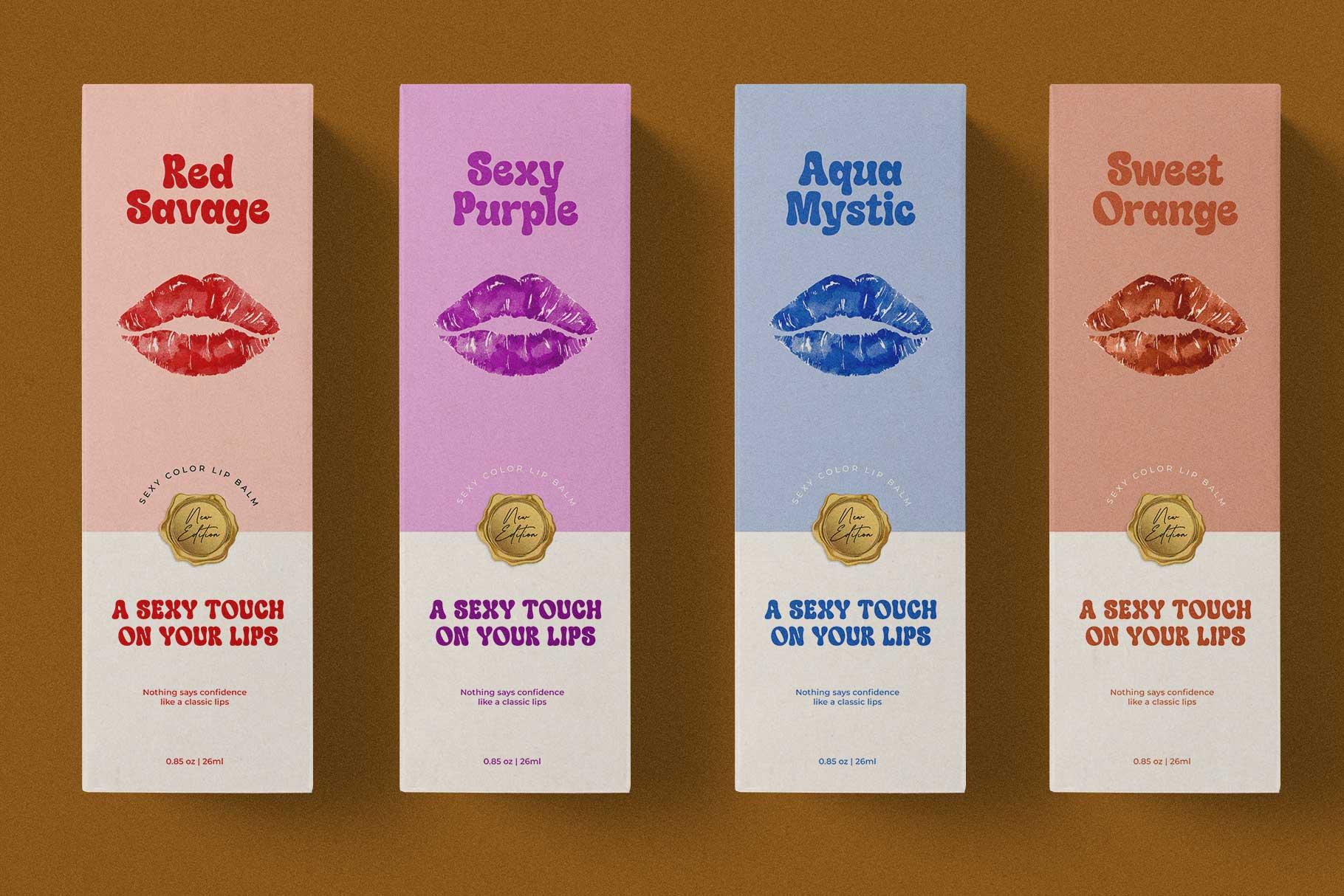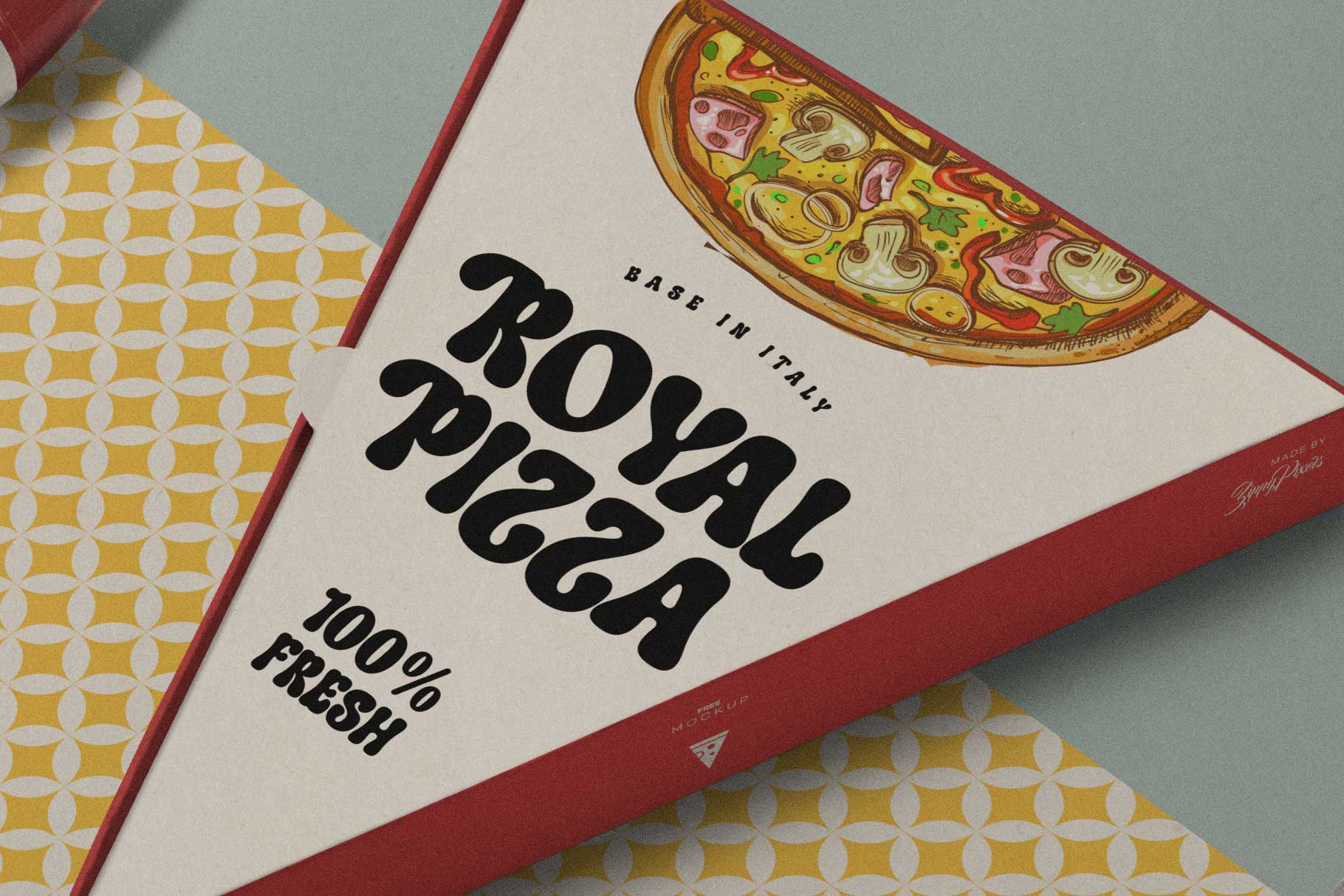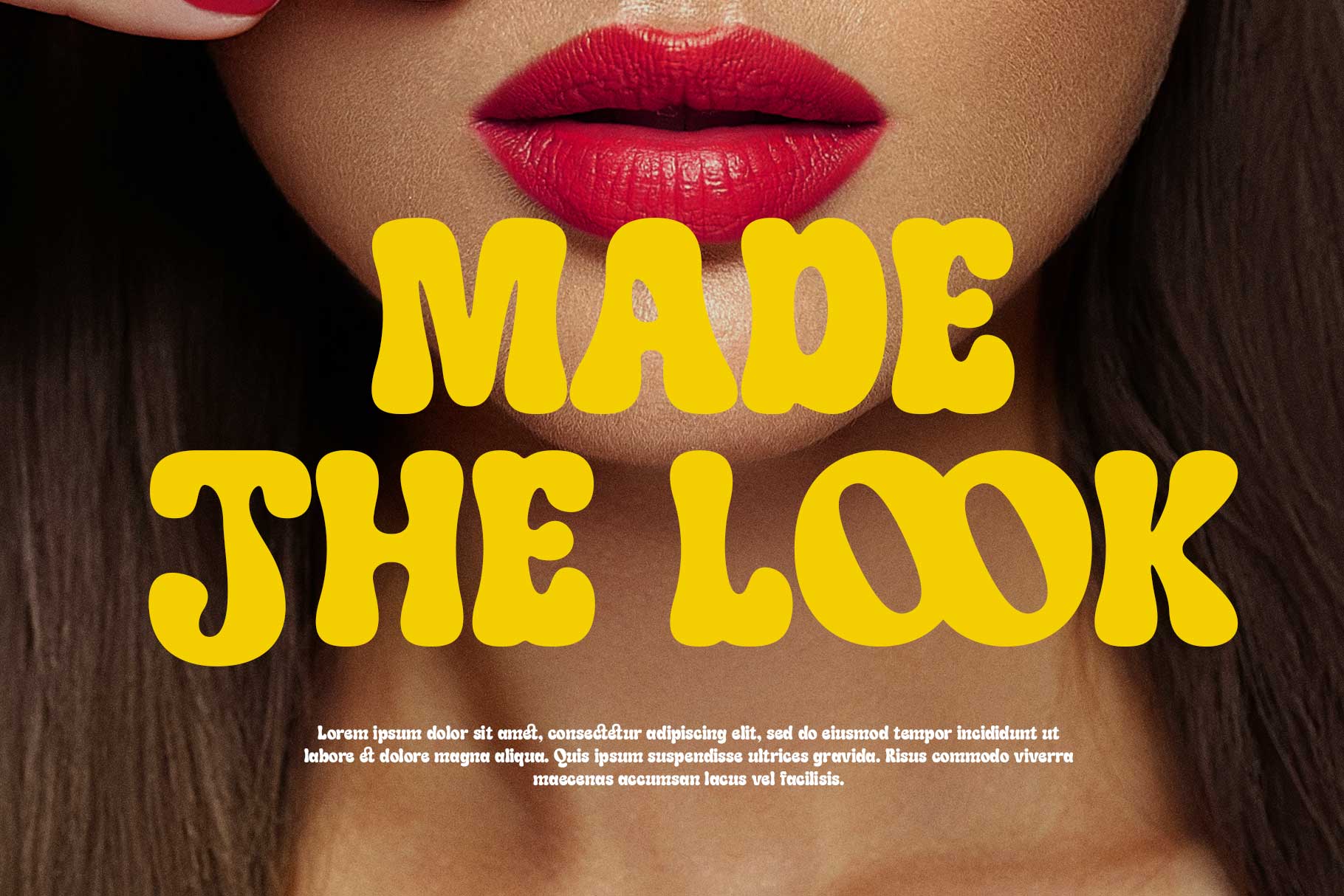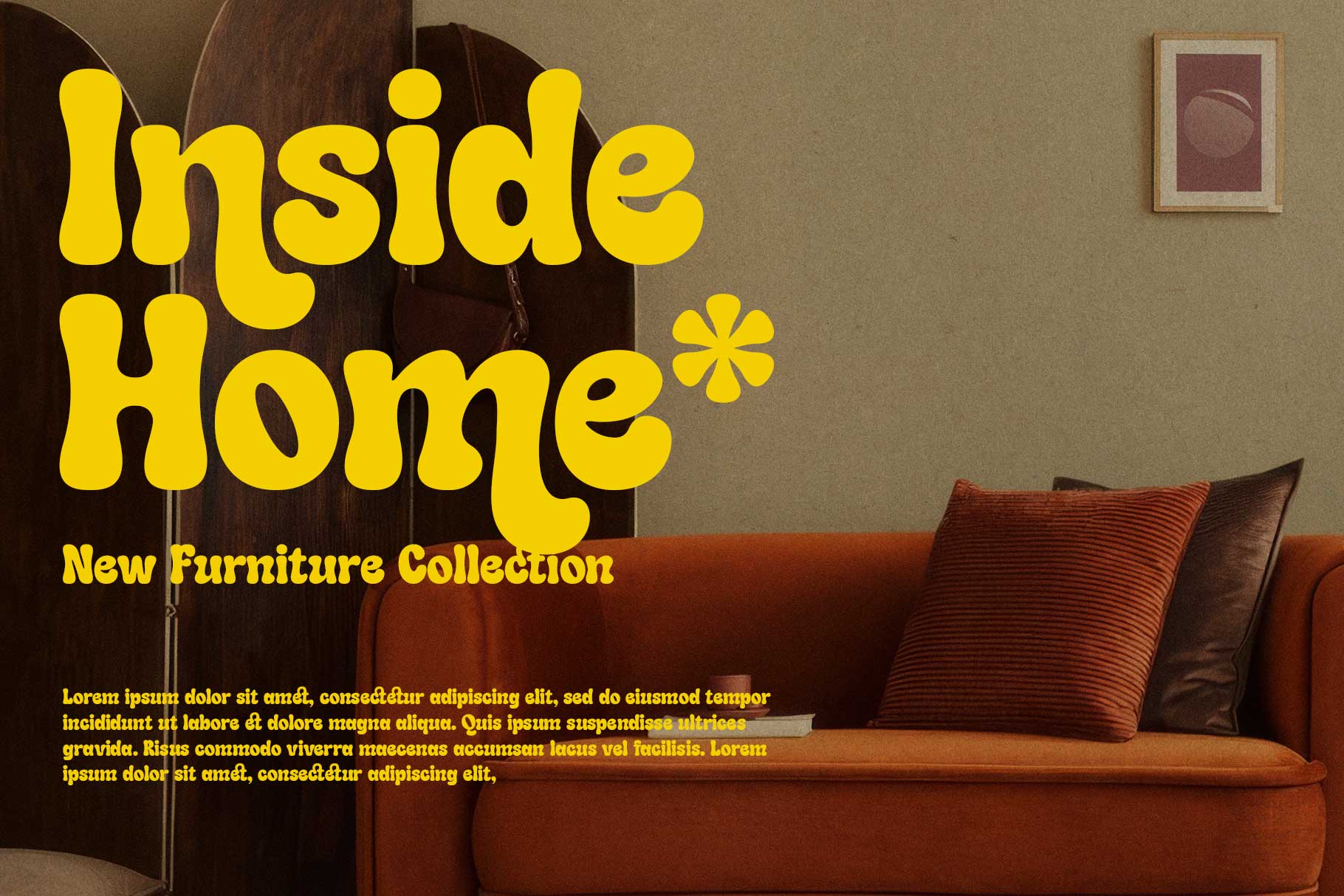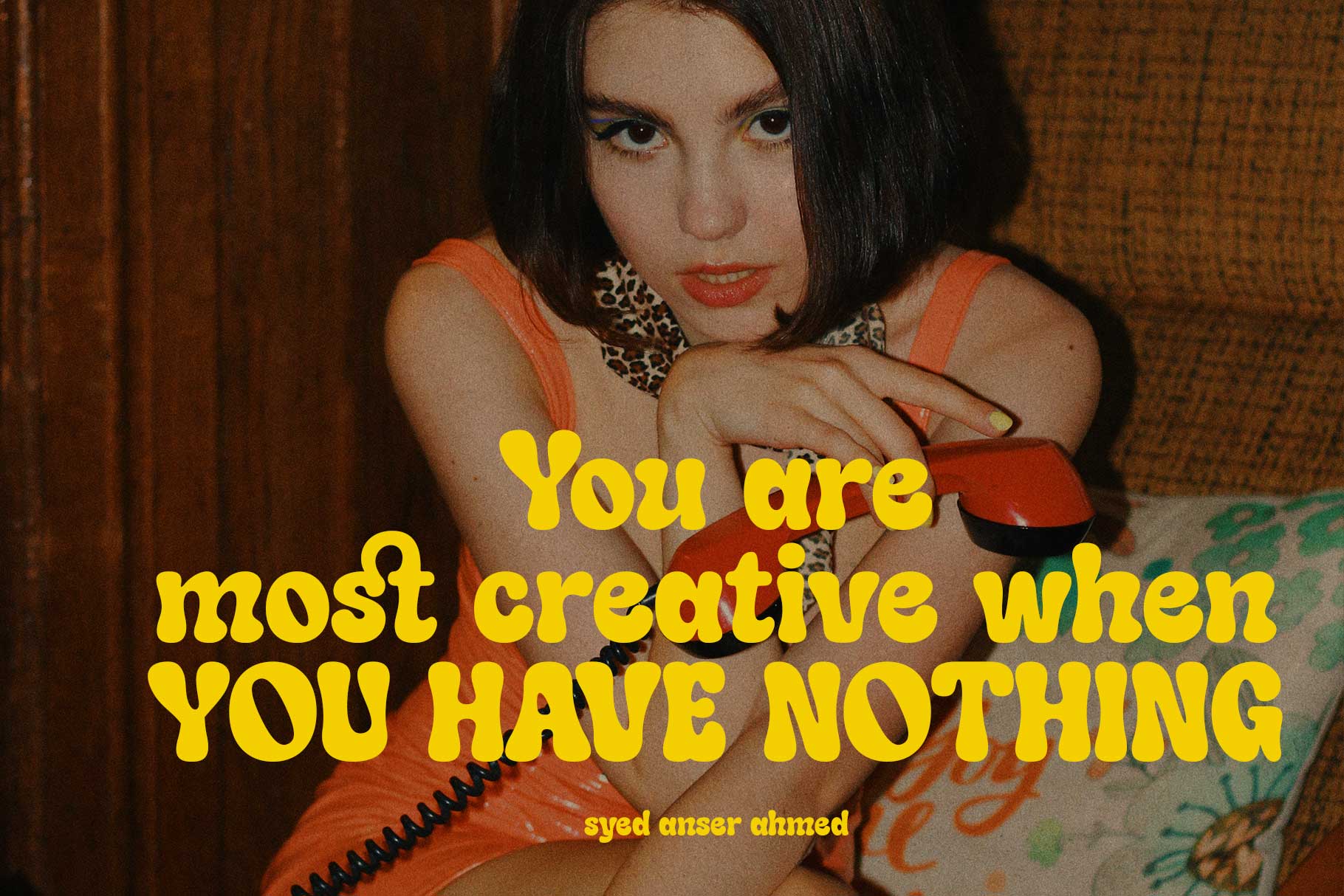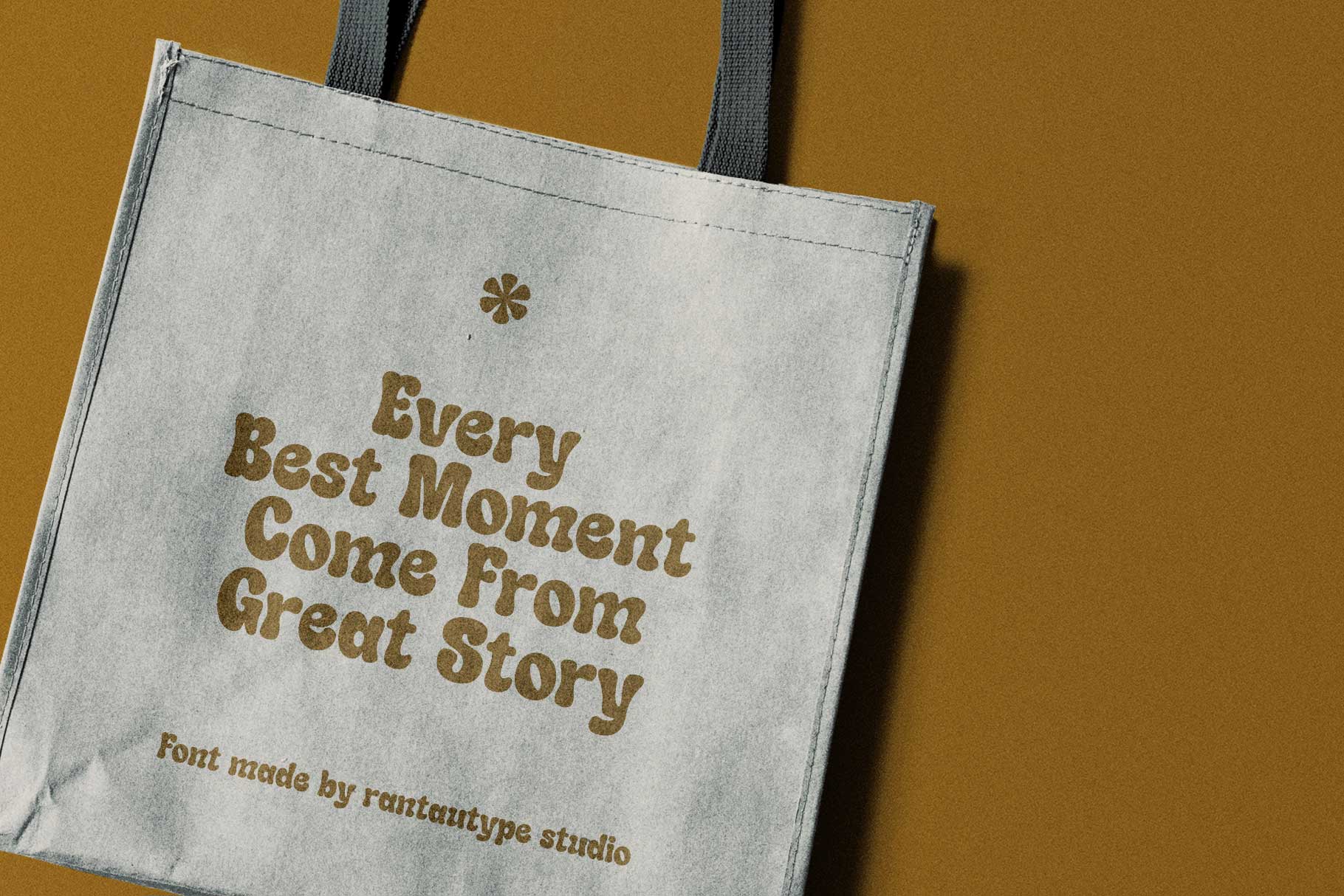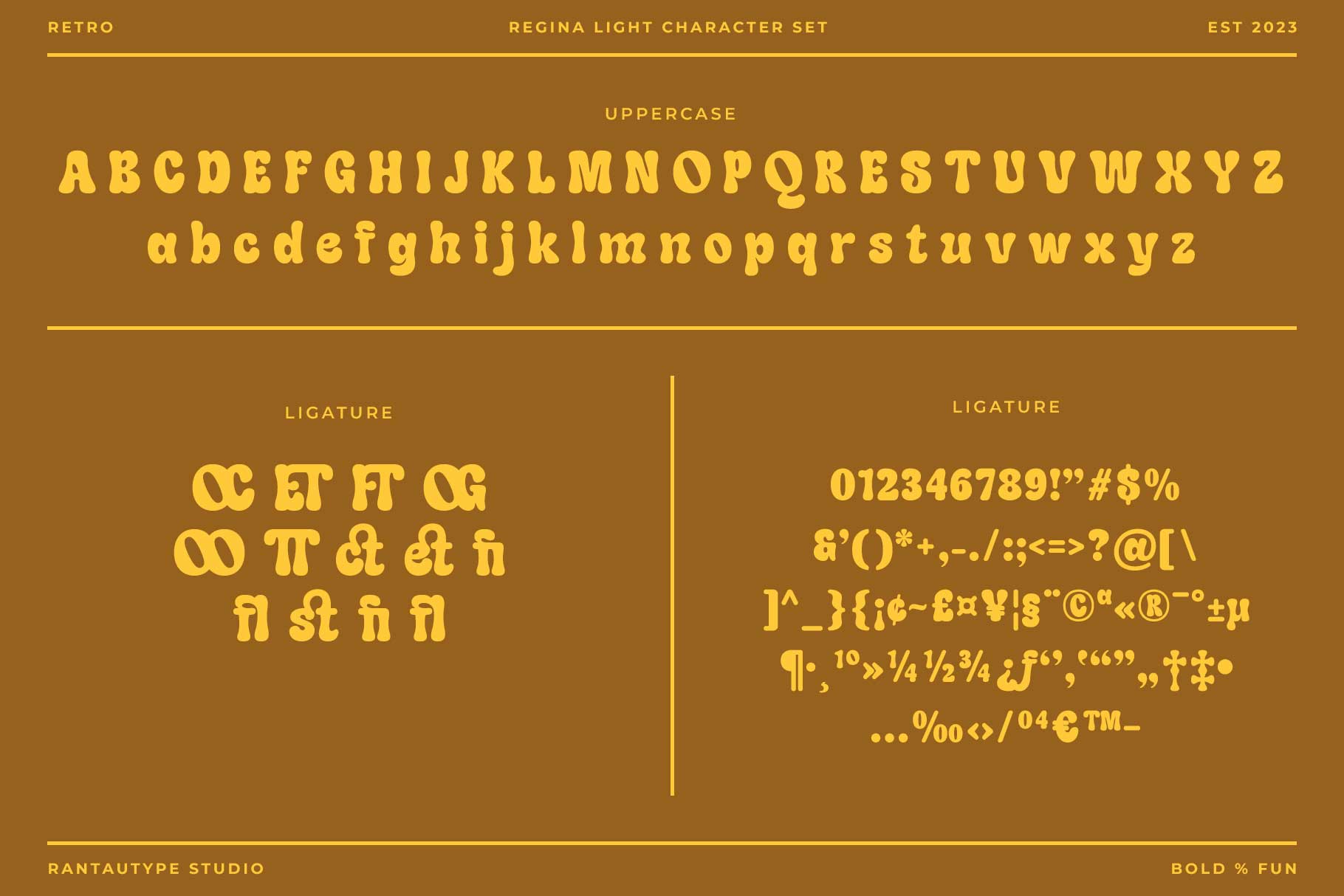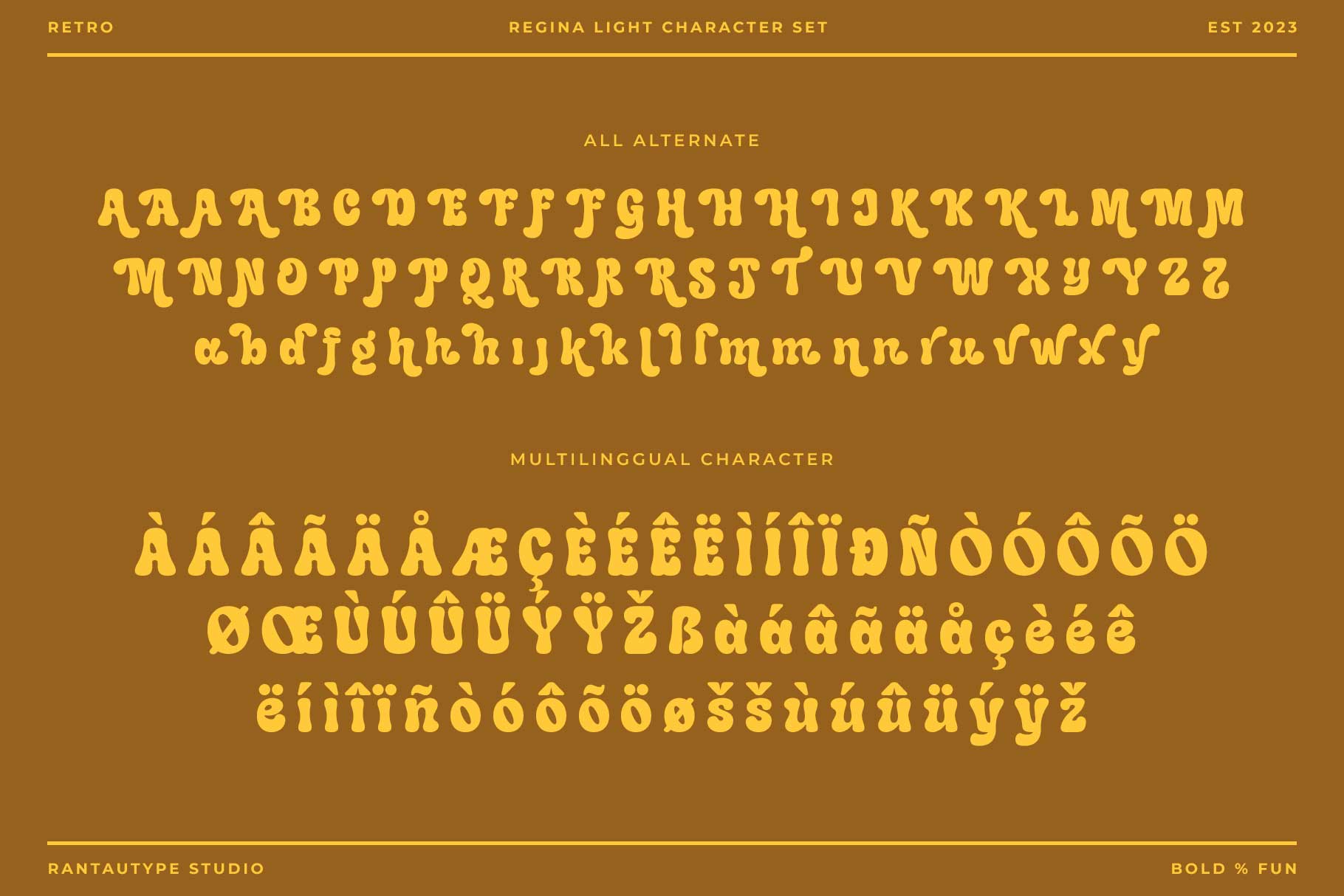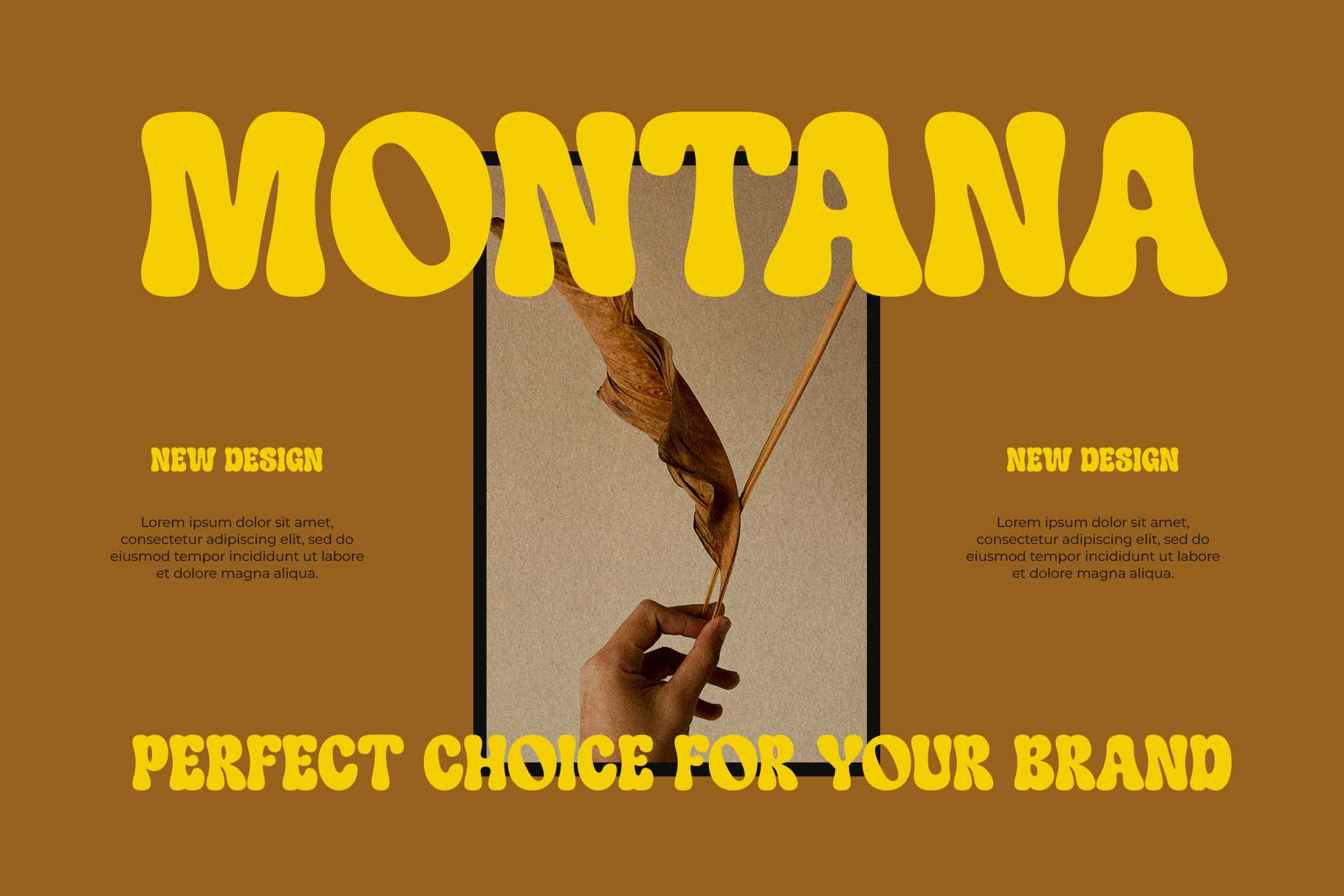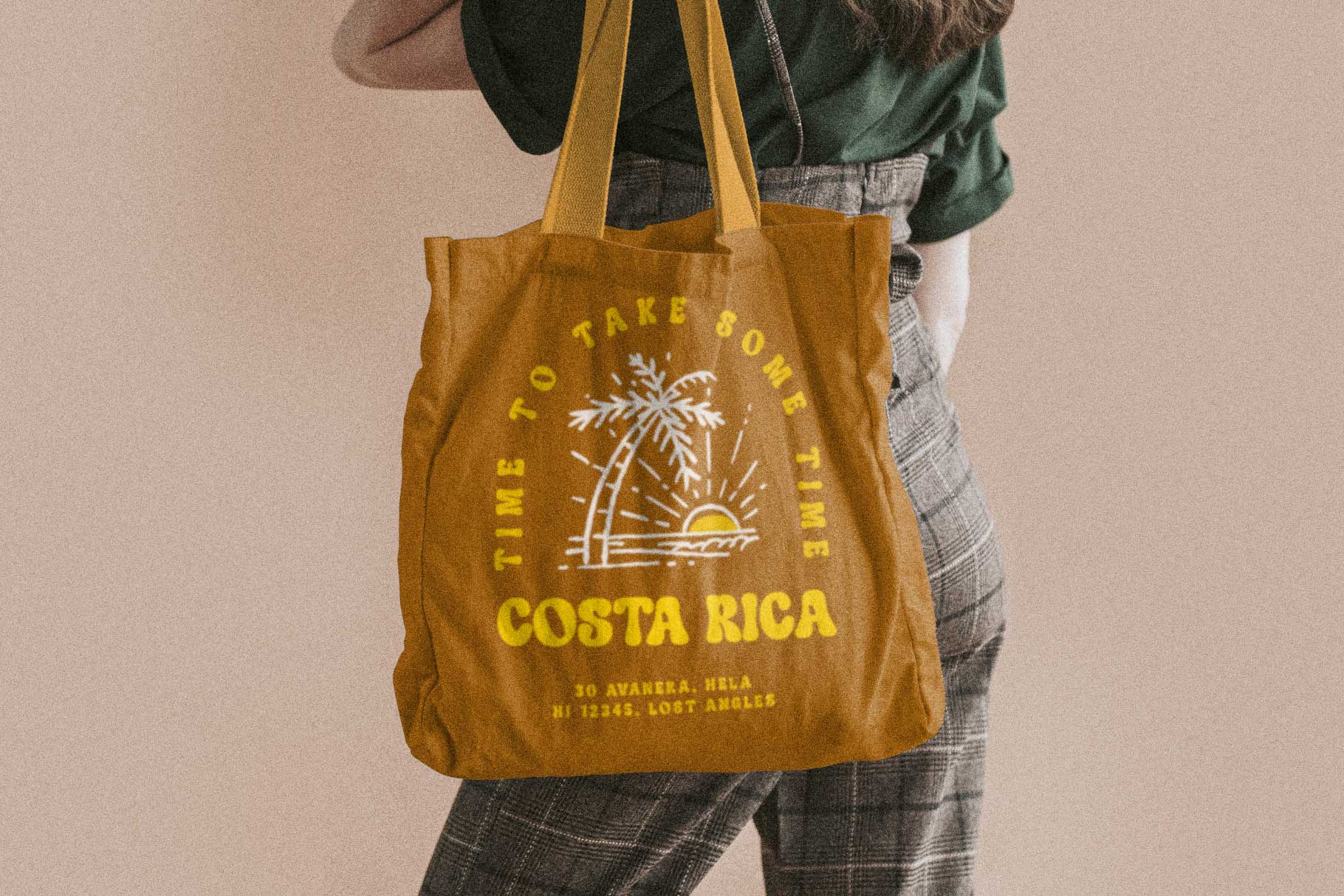
Regina Light Rounded Retro Font
Regina Light is bold serif font with fun vibes. Regina light bring soft curve make it natural and playful look. Regina Light is a beautiful choice for any creative endeavor, creating elegant, modern, chic, lifestyle design such as logotype, title, cover, branding, invitations, wedding designs, display and magazine, social media posts, advertisements, printed quotes, product packaging, corporate brand, product designs, labels, photography, watermarks, special events and any other project with retro or fun touch.